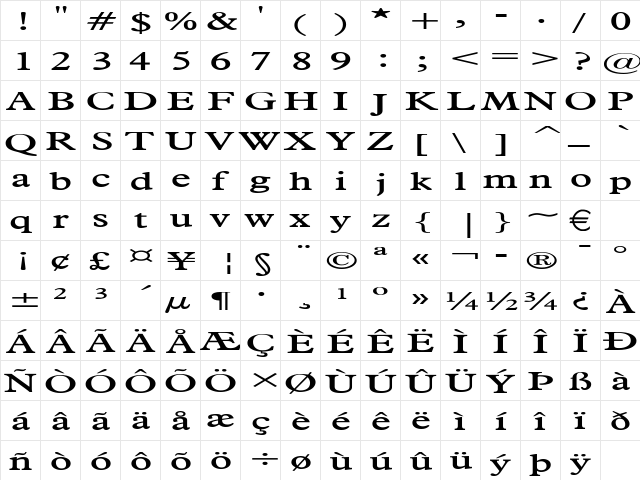
NadineWide Normal
Design Context for NadineWide Typeface
NadineWide takes a measured approach to typography — its balanced proportions and neutral character make it a reliable workhorse for both digital and print work.